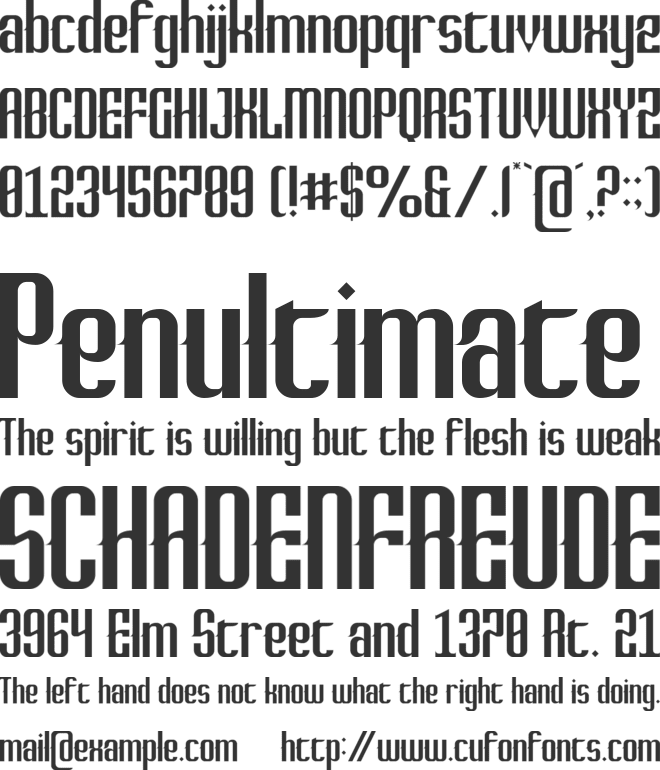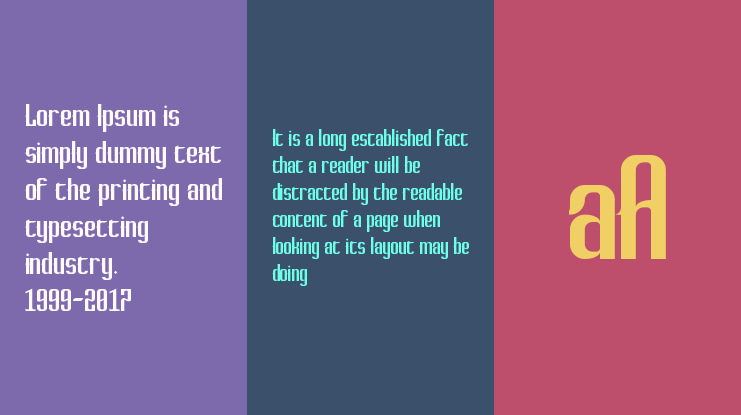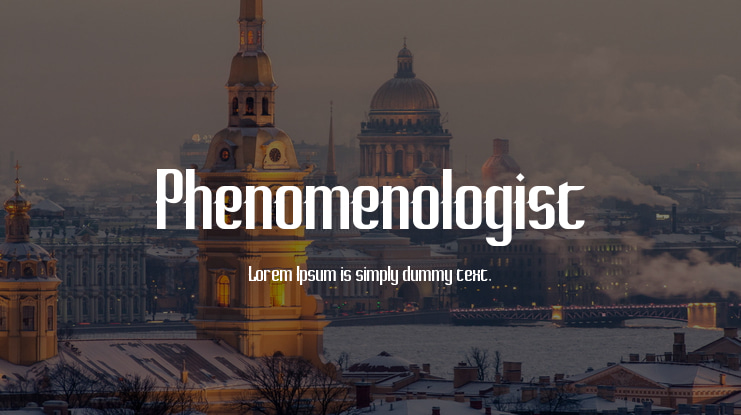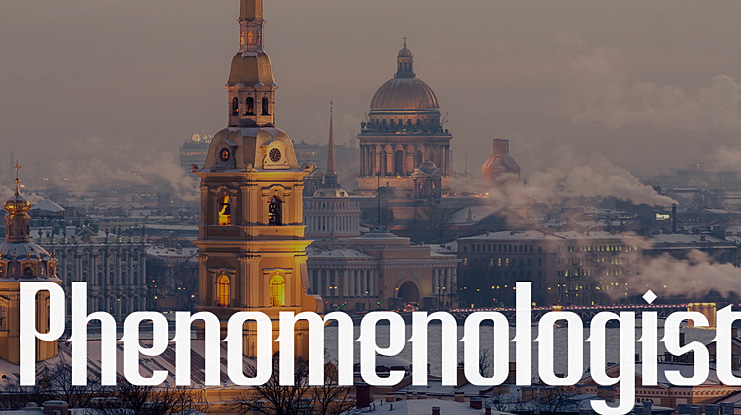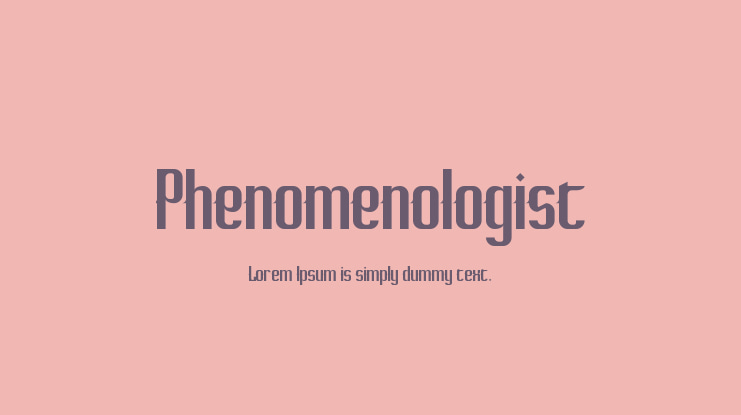
Phenomenologist Font
zephram
An asymmetrical, slightly scriptlike sans-serif design. Optimized for display. Supports Danish, Dutch, English, Finnish, French, German, Hungarian, Icelandic, Italian, Norwegian, Portuguese, Spanish, and Swedish.